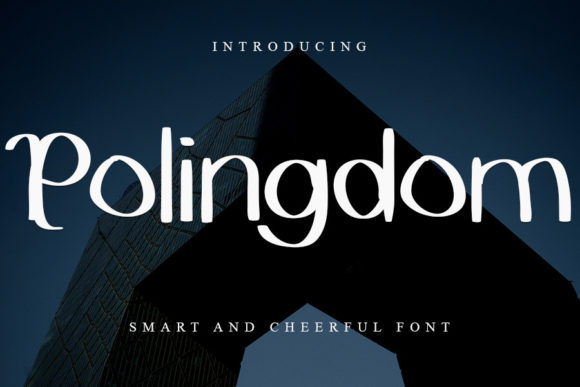
**Polingdom: The Perfect Font for Your Unforgettable Wedding Envelopes**
Indulge in the exquisite elegance of Polingdom, a display font that will cast a spellbinding allure over your wedding envelopes. With its graceful curves and impeccable sophistication, Polingdom empowers you to craft invitations that mirror the boundless joy and love of your special day.
Polingdom's versatility extends beyond the boundaries of wedding envelopes. Its adaptability makes it an indispensable asset for any creative project, from captivating social media posts to alluring branding materials. Its ability to elevate any design concept is a testament to its inherent brilliance.
Intana Type, the visionary behind Polingdom, has imbued this font with a touch of magic. Its effortless charm and undeniable allure will transform your words into a symphony of emotions, leaving an everlasting impression on all who behold them.
**Why Polingdom is the Font of Your Dreams:**
* **Effortless Sophistication:** Polingdom exudes an air of sophistication that will make your wedding envelopes the epitome of elegance. Its graceful strokes and impeccable balance create a visual masterpiece that will captivate the hearts of your guests.
* **Boundless Creativity:** Unleash your creativity with Polingdom's versatile nature. Whether you're crafting heartfelt wedding invitations, designing eye-catching posters, or creating compelling social media posts, Polingdom will effortlessly elevate your designs to new heights.
* **A Statement of Love:** Each letter of Polingdom is a stroke of romance, a testament to the love and joy that surrounds your wedding day. Allow this font to be the messenger of your heartfelt emotions, echoing the depth of your love through the beauty of its design.
Embrace the allure of Polingdom and watch as your wedding envelopes and creative projects blossom into works of art. This font is more than just a collection of letters; it's an expression of your love, a reflection of your joy, and a testament to the unforgettable moments that await you.